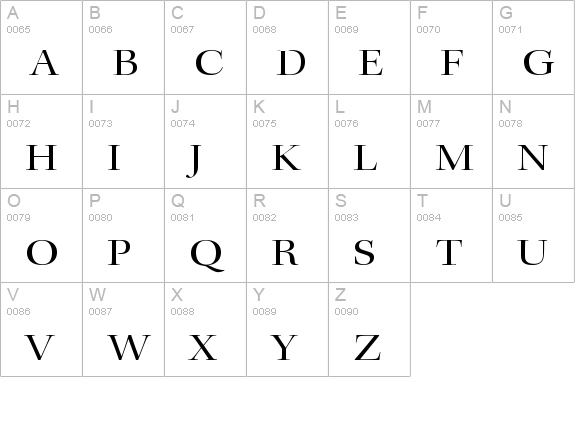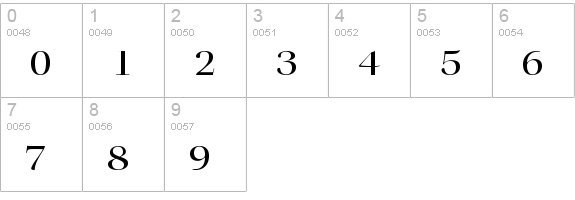
Kepler Std Extended Display Font Details
Kepler Std Extended Display is a distinctive, extended-width variant in the Kepler typeface family \xE2\x80\x94 well suited to design and typography projects.
Kepler Std Extended Display font is a stunning typeface that exudes elegance and sophistication. Its elongated letterforms and generous spacing make it perfect for captivating headlines, titles, and display text. With its sleek and modern design, Kepler Std Extended Display font effortlessly commands attention and adds a touch of refinement to any project. Whether it's used in print or digital media, this font guarantees to make a lasting impression. One of the greatest features of Kepler Std Extended Display font is that it is free. Yes, you read that right! This incredible typeface is freely available to download at FontsMarket.com. Now, you can enjoy the beauty and versatility of Kepler Std Extended Display font without breaking the bank. The designers behind Kepler Std Extended Display font have meticulously crafted each character, ensuring utmost legibility and readability even at smaller sizes. This makes it an ideal choice for subheadings or captions that need to convey information clearly. The versatility of Kepler Std Extended Display font knows no bounds. Whether you're designing a magazine spread, a website banner, or an eye-catching poster, this font will effortlessly elevate your design to new heights. Its clean lines and refined curves bring a sense of professionalism and sophistication to any project. So, why wait? Download Kepler Std Extended Display font for free at FontsMarket.com and unlock the power of this exceptional typeface. Whether you're a professional designer or an enthusiast, this font will undoubtedly become an invaluable asset in your creative arsenal. Don't miss out on this opportunity to enhance your designs with the beauty and elegance of Kepler Std Extended Display font.